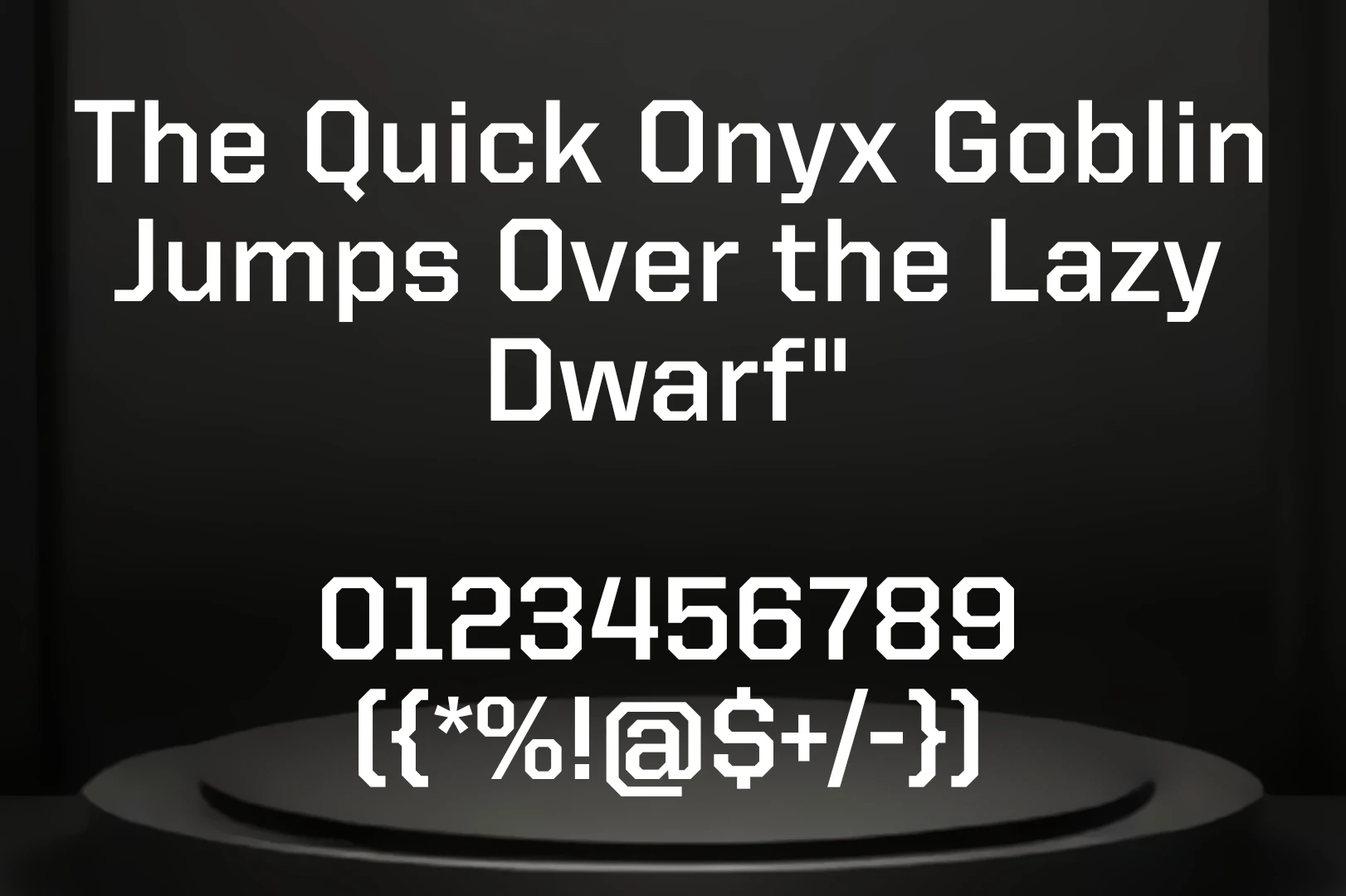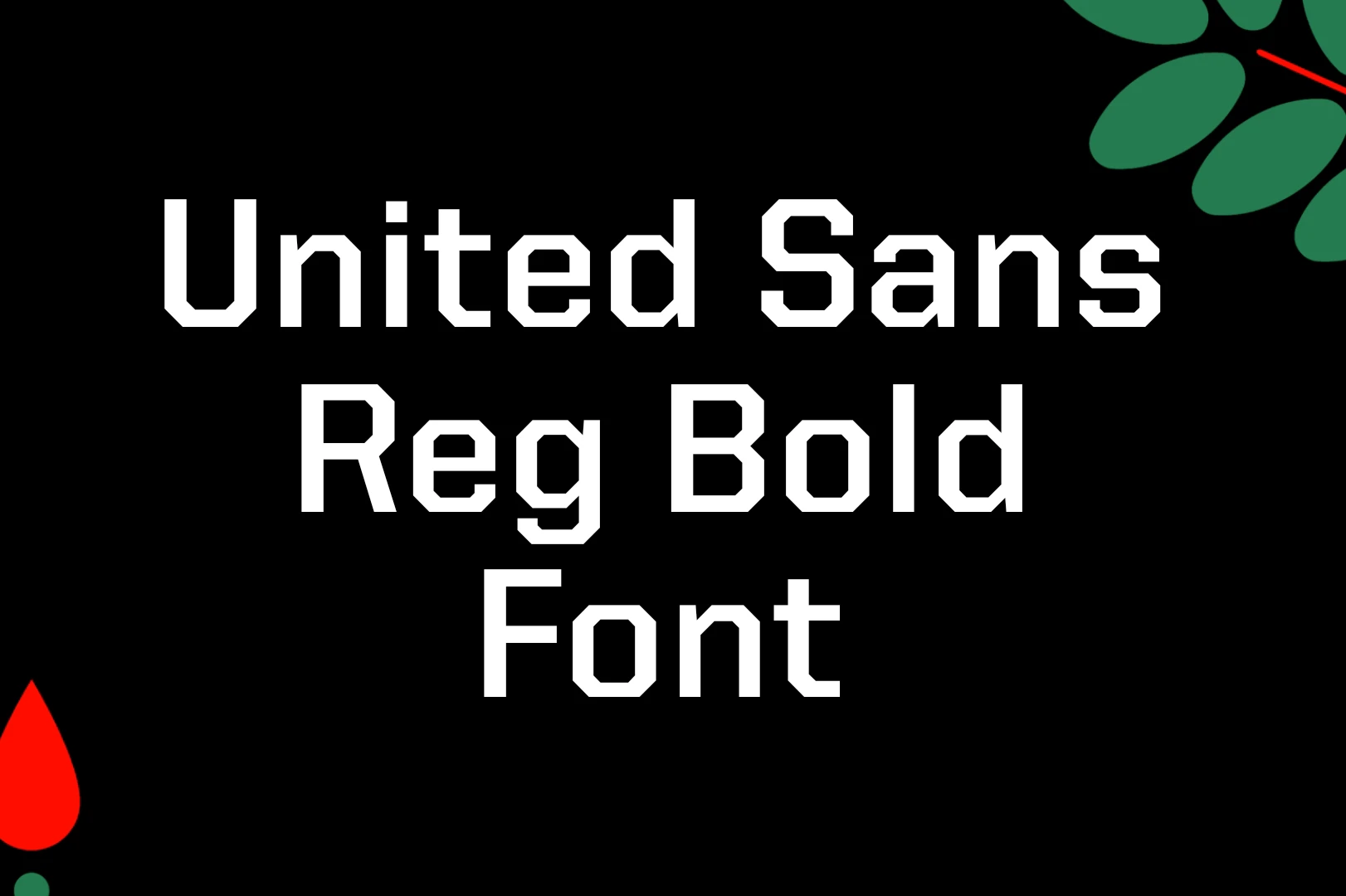
United Sans Reg Bold Font is a robust and impactful typeface that commands attention with its bold design. Developed to make a lasting impression, this font offers a versatile and dynamic option for various design applications. The defining characteristic of United Sans Reg Bold texture is its bold and commanding presence. It is well-suited for headlines, titles, and any design element that requires a strong visual impact.
While its boldness makes it ideal for attention-grabbing elements, the font retains a level of versatility that allows it to adapt to different design contexts. This flexibility makes it a valuable asset for a range of creative projects.
United Sans Reg Bold texture embodies a clean and modern aesthetic, making it a popular choice for contemporary design projects. The simplicity of its design ensures clarity and readability in various applications. Despite its bold nature, It maintains excellent readability. This makes it suitable for both print and digital media, ensuring that your message is conveyed with clarity and impact.
Usage of United Sans Reg Bold Font
This font is a specific variant, the font family may include additional weights and styles to offer users a broader range of design possibilities. Explore the font family to discover complementary styles.
The font easily fits with Illustrator’s advanced features, making it easy to use bold and impactful typography in different design projects. United Sans Reg Bold texture has a clean and modern look, making it a trustworthy option for people exploring the detailed world of digital design in Adobe’s creative suite.
| Name | United Sans Reg Bold Font |
| Style | Sans Serif |
| Designer | Tal Leming |
What makes United Sans Reg Bold Font stand out?
It is renowned for its bold and impactful design, making it a standout choice for attention-grabbing headlines and design elements.
In which design applications can I use United Sans Reg Bold Font?
Does United Sans Reg Bold Font offer additional weights and styles?
Depending on the source, additional weights and styles of United Sans texture may be available, providing users with a broader range of design options.
How can I optimize the visual impact of my design using the United Sans Reg Bold style?
Experiment with texture pairing and leverage the bold typography features of the United Sans Reg Bold typeface to enhance the visual appeal of your design projects.
Can I use the United Sans Reg Bold typeface for web design projects?
Yes, United Sans Reg Bold texture is suitable for web design, providing a clean and modern aesthetic that enhances readability on digital platforms.
How can I experiment with texture pairing using the United Sans Reg Bold typeface?
Explore contrasting fonts for body text and headings to optimize the design impact, taking advantage of the font’s bold and versatile characteristics.
What role does United Sans Reg Bold texture play in branding and logo design?
United Sans Reg Bold Font’s bold and impactful design makes it a popular choice for branding and logo design, helping businesses create a memorable visual identity.